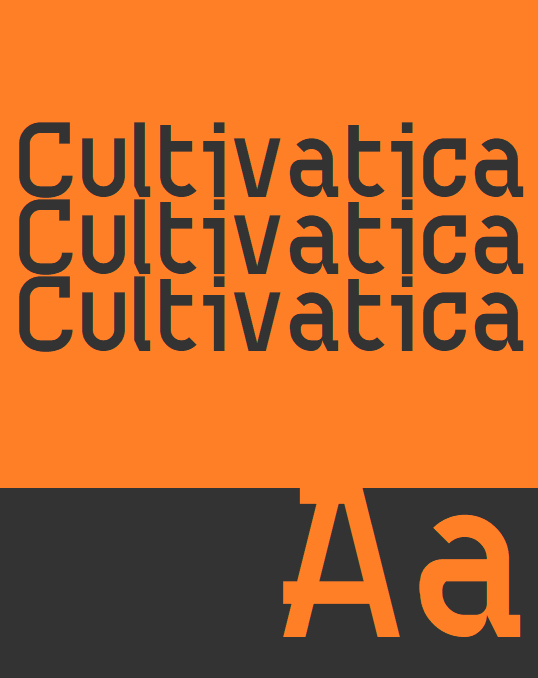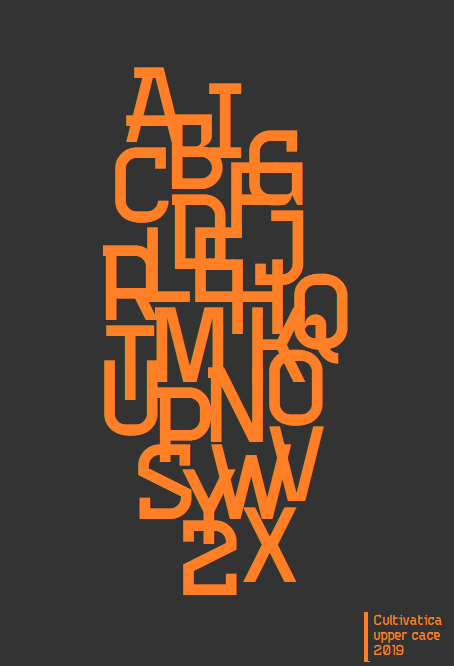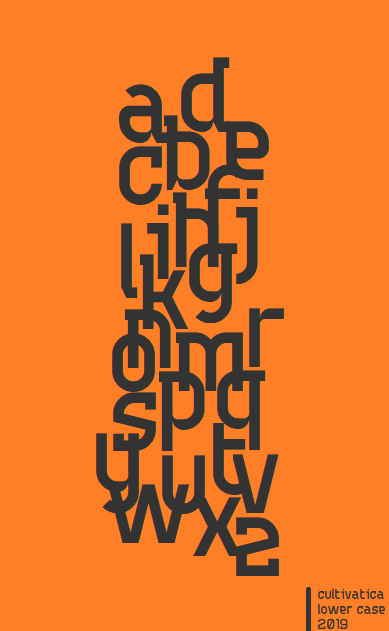
AWESOME. I'm anxiously waiting for ligatures :D
Very accomplished, with some lovely quirky characters. Great work.
Ligature added :D
Stunning samples, amazing work, the ligatures are really nice. 10/10
I like that & and-sign the best. Good job.